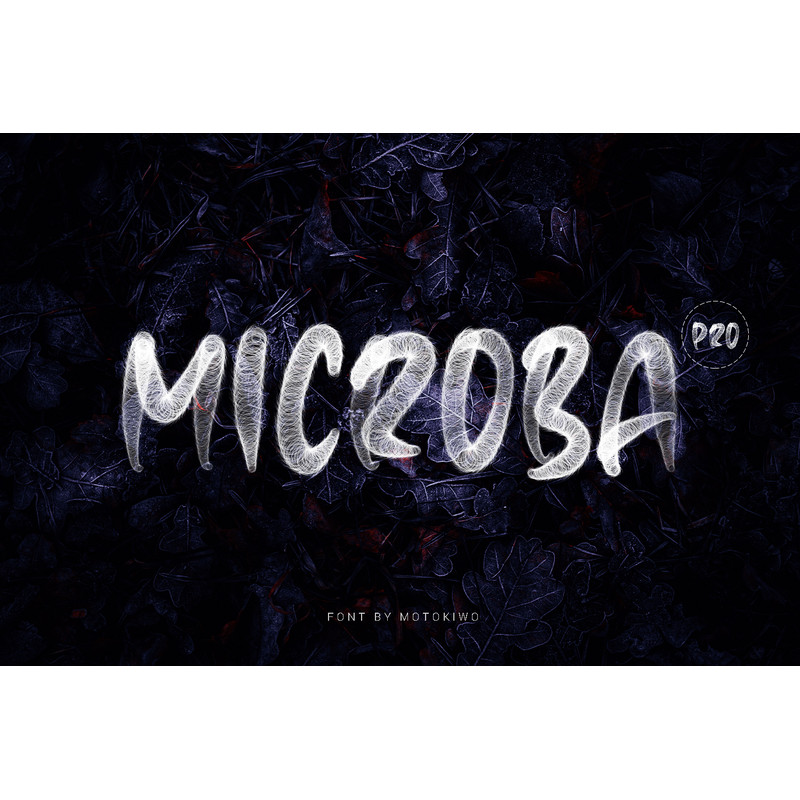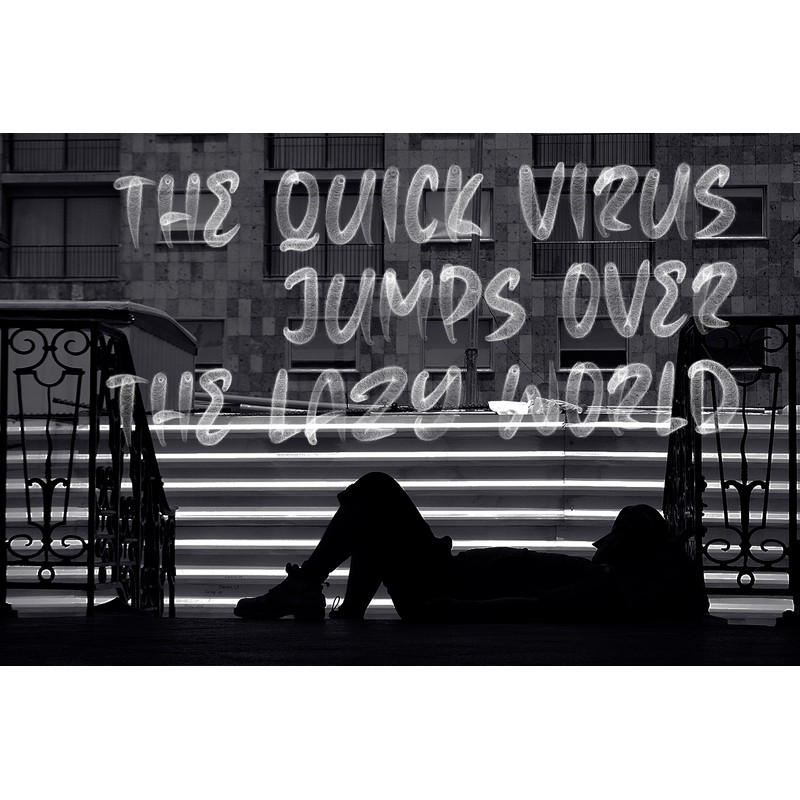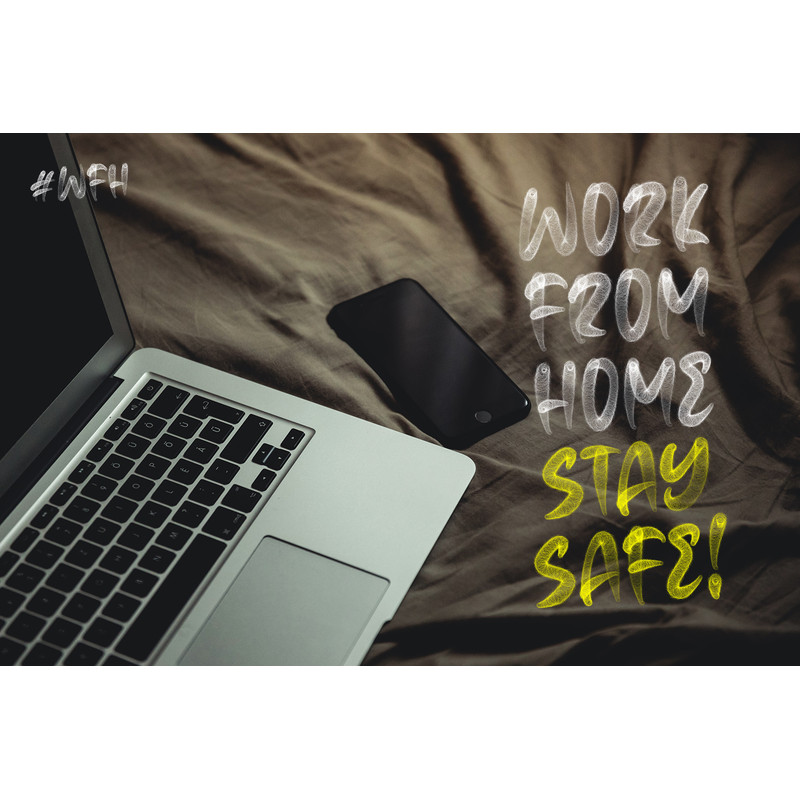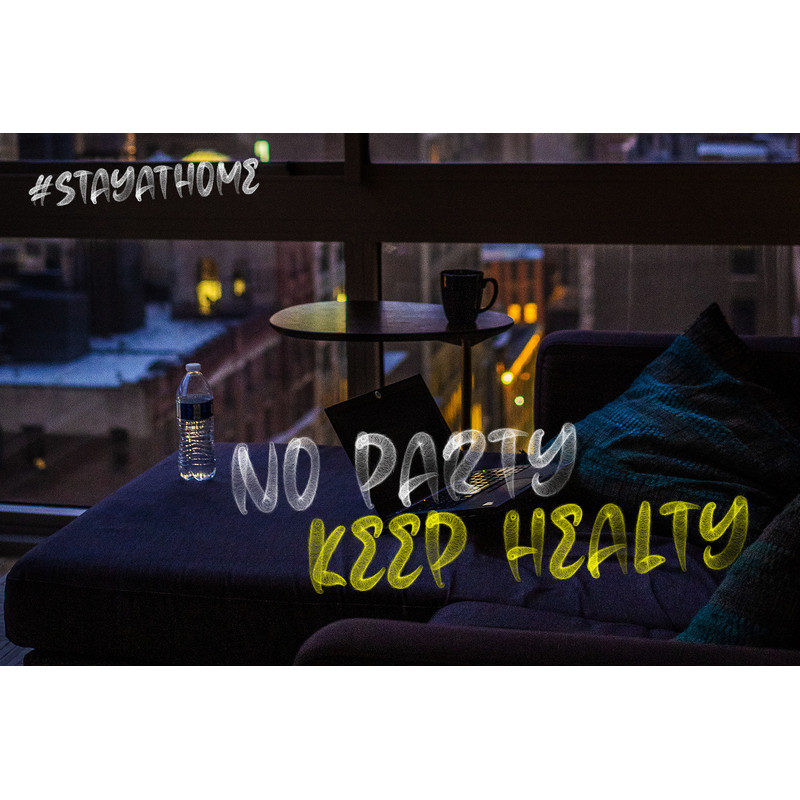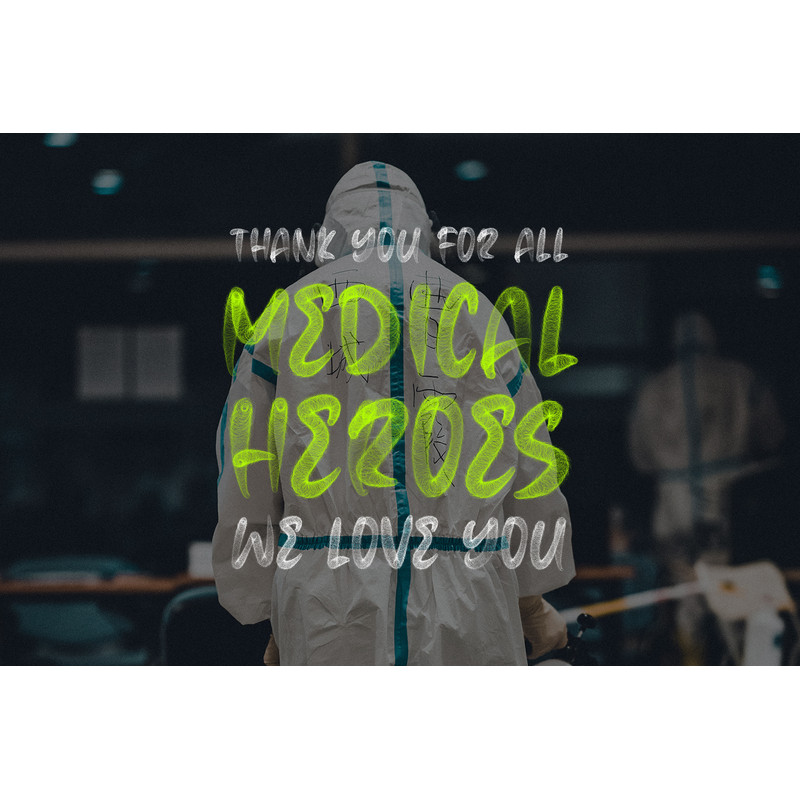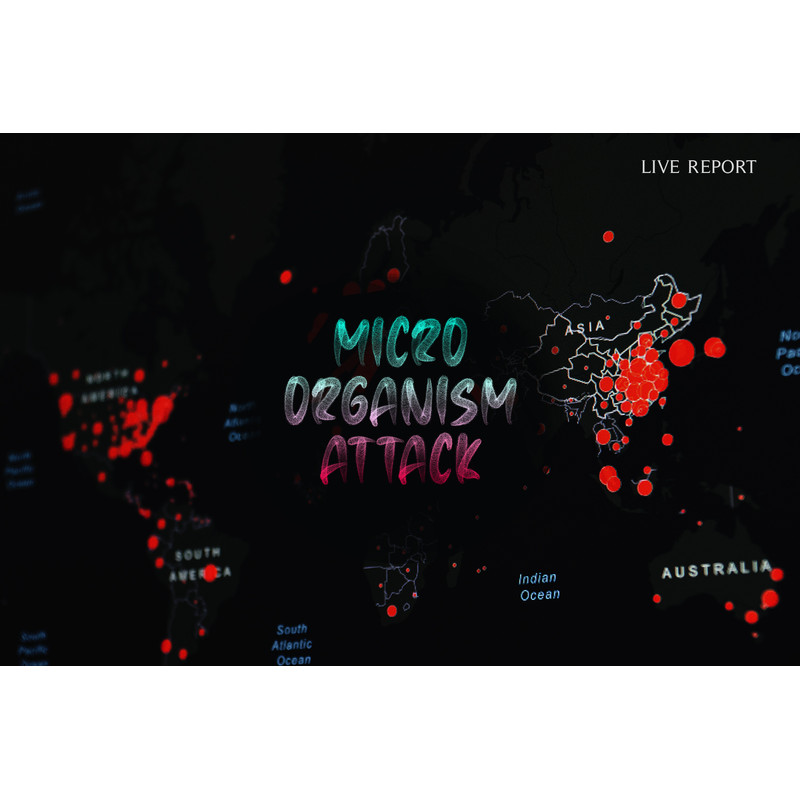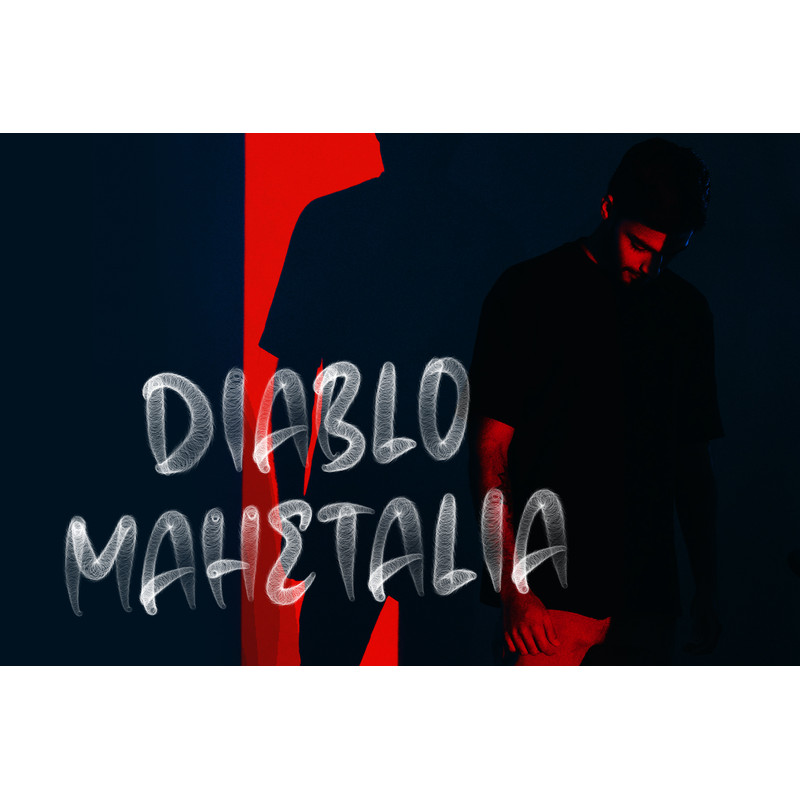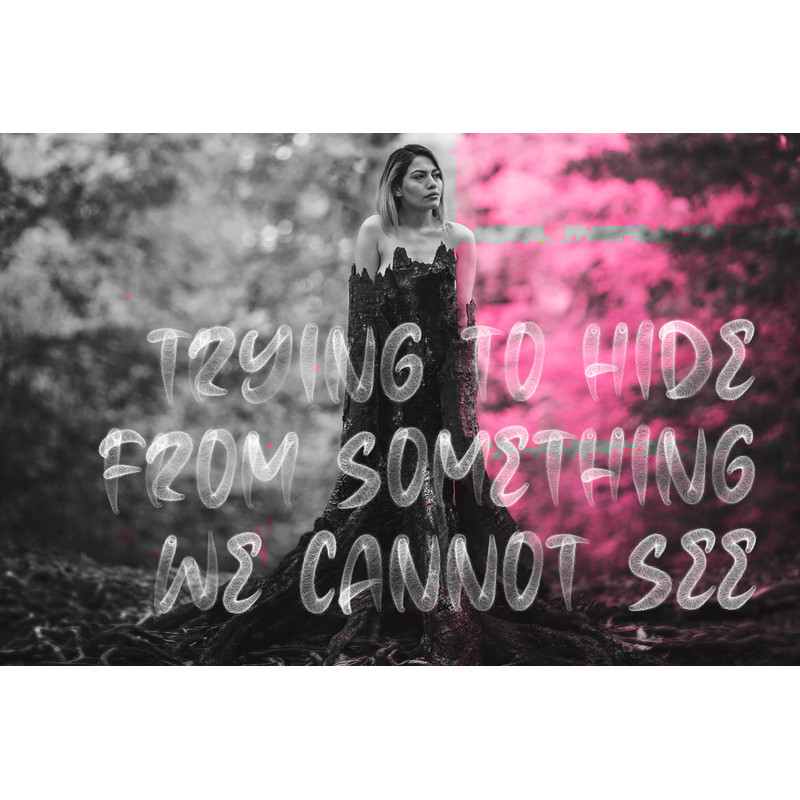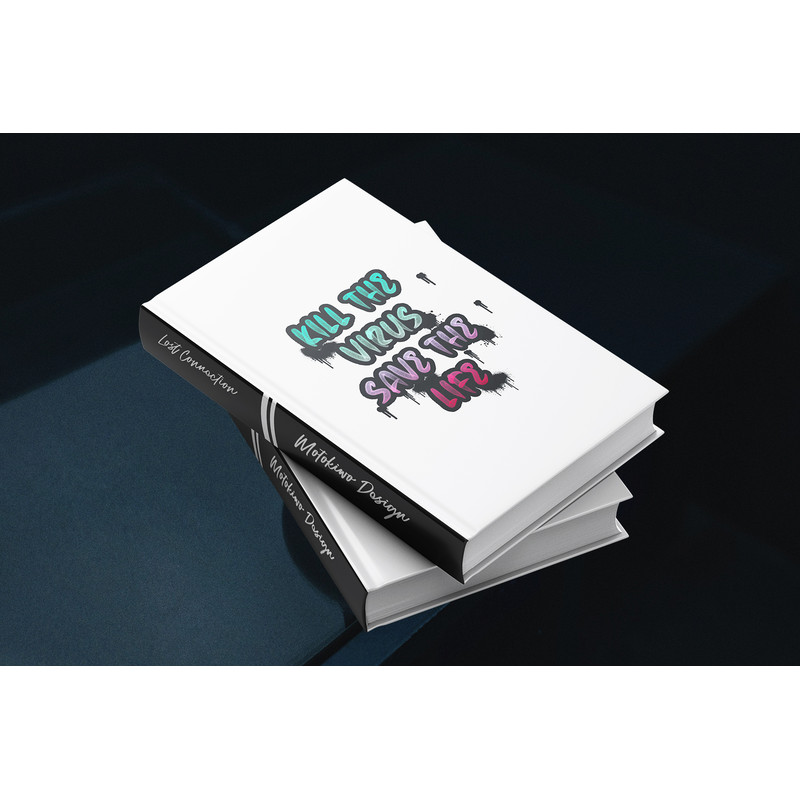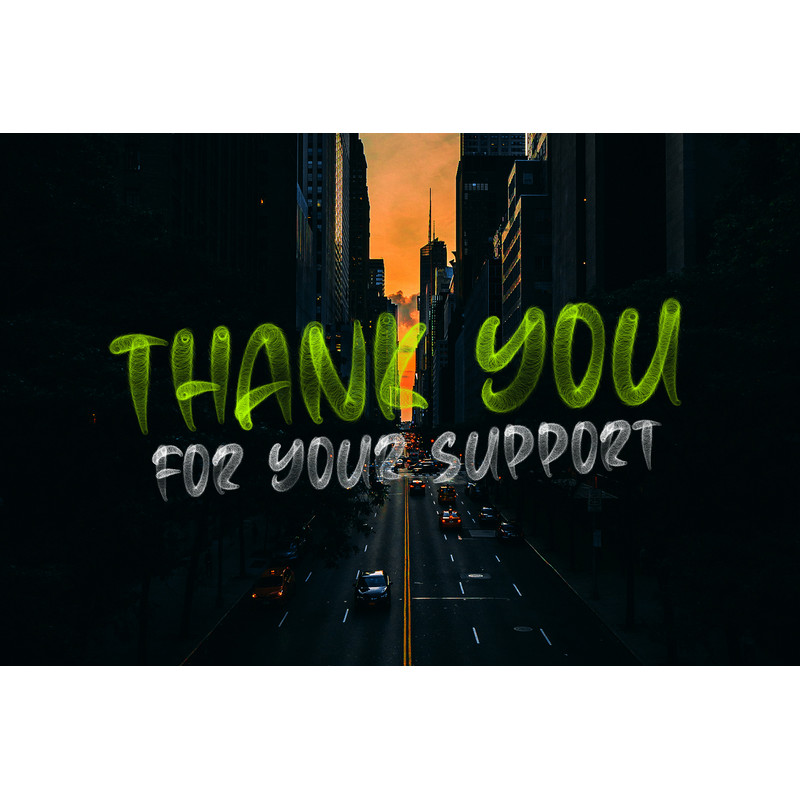
Microba Pro is unique typeface created from a great brush that looks like micro organism, virus, hollow, or worm. The idea was came from the situation of our world that have been attacked by a new virus, and pushing everyone to stay at home.
Microba Pro contains all caps characters, numbers, and punctuations. In the zip folder you’ll find Microba Pro SVG and Vector Versions (OTF files), also a guide to use SVG font.